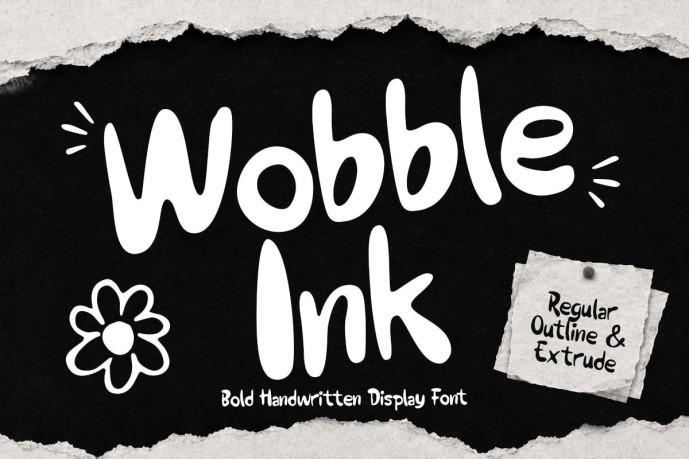
Wobble Ink Font is all about big smiles, intricate scribbles, and carefree creativity. With its large, handwritten shapes and playful, dynamic rhythm, this font is friendly and full of personality. It comes with many styles and doodle accessories, making it perfect for children’s projects, school supplies, packaging, stickers, social media, and creative designs that want to be cheerful, approachable, and full of happy energy.